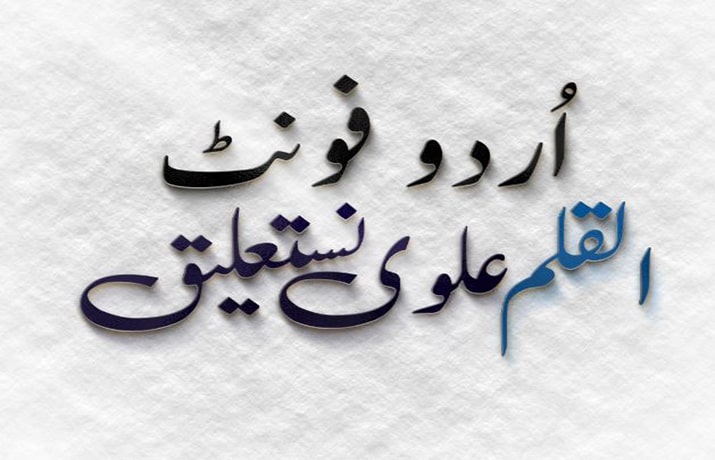
Introducing Alvi Nastaleeq Font! It is a foreign-looking typeface widely used in the Asia-Pacific region. Pakistan-based font designer Amjad Hussain Alvi took charge of designing on 12 June 2007.
It includes the English alphabet and the Urdu alphabet. And it becomes one of the best fonts to work with the Urdu language.
You can use this clean font for logos, game developing, app development, book covers, page layouts, paragraphs, business cards, t-shirt printing, poster crafting, tattoos, special event cards, wedding cards, invitations, and so on.
This typeface comes in just a regular style with Truetype features. While this single style has 16982 characters which itself is a huge amount.
After applying these fonts to your designs. You can get a modern and attractive touch that increases the demand for your projects.